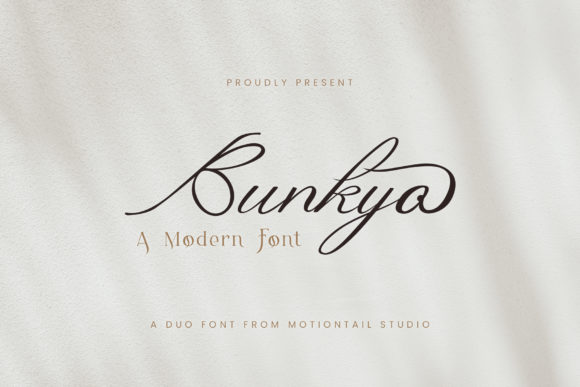
Dive into the world of elegance and sophistication with Bunkyo Font, a duo font that exudes a timeless charm. Crafted with the utmost care and attention to detail by the skilled artisans at motiontailstudio, Bunkyo is a serif and handwritten font that harmonizes beautifully, offering a diverse range of design possibilities.
Bunkyo's delicate strokes and flowing characters add an air of grace to any project. Its well-balanced design ensures compatibility with a broad spectrum of creative concepts, making it an ideal choice for both digital and print applications. Whether you're a seasoned designer or just starting out, Bunkyo is your gateway to creating captivating visuals that resonate with your audience.
Unleash your creativity with Bunkyo, the perfect font for website design. Its elegant curves and refined details bring a touch of sophistication to your online presence, enhancing user engagement and leaving a lasting impression. Craft captivating headlines, stylish logos, and eye-catching graphics that reflect your brand's unique personality. Bunkyo is the key to unlocking a world of design possibilities, transforming your website into a visual masterpiece.
Bunkyo's versatility extends far beyond website design. Its delicate strokes and flowing characters lend themselves effortlessly to a myriad of applications. Enrich your social media posts with visually stunning graphics, design personalized invitations and greeting cards that convey your heartfelt messages, or create stunning posters and flyers that command attention. With Bunkyo, your creative expressions take center stage, captivating audiences and leaving an indelible mark.